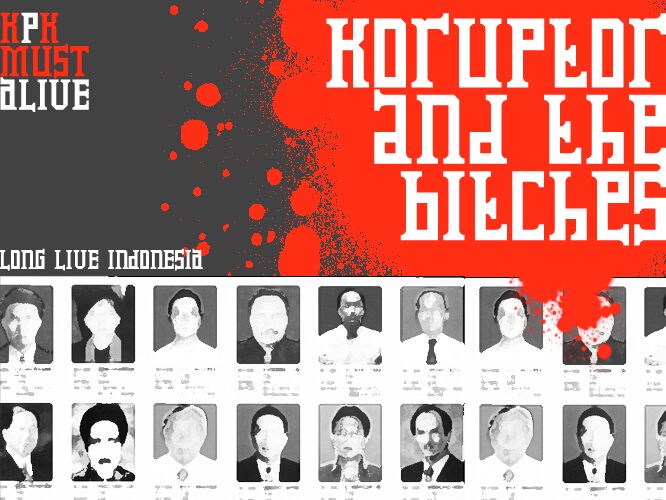
Koruptor and the Bitches by Adien Gunarta is a free Russian-inspired display font with massive, tightly packed letterforms. Broad slab serifs, squared arches, and sharp diagonal joins give the lettering a severe poster-cut silhouette. The narrow gaps feel almost architectural.
Soviet-era satire and underground music are its clearest territory, making it apt for gig posters, album art, and provocative editorial covers. It is most convincing in a title treatment that turns lettering into an imposing graphic border.